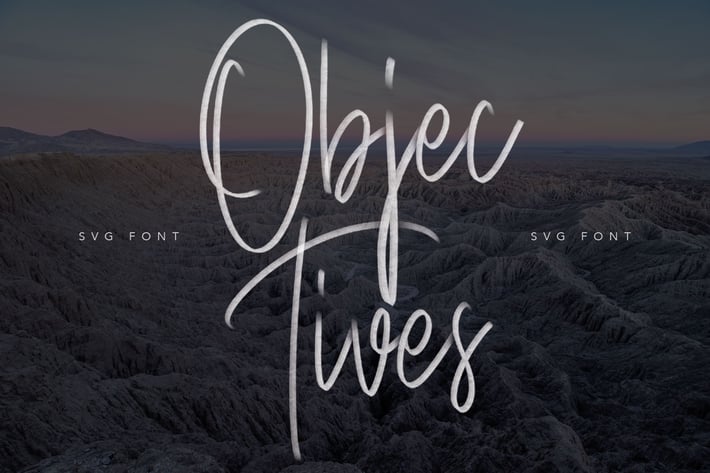
Objectives SVG Brush Font
Give your designs an authentic brush handcrafted feel. "Objectives SVG Brush Font" is perfectly suited to signature, stationery, logo, typography quotes, magazine or book cover, website header, flyer, clothing, branding, packaging design and more.